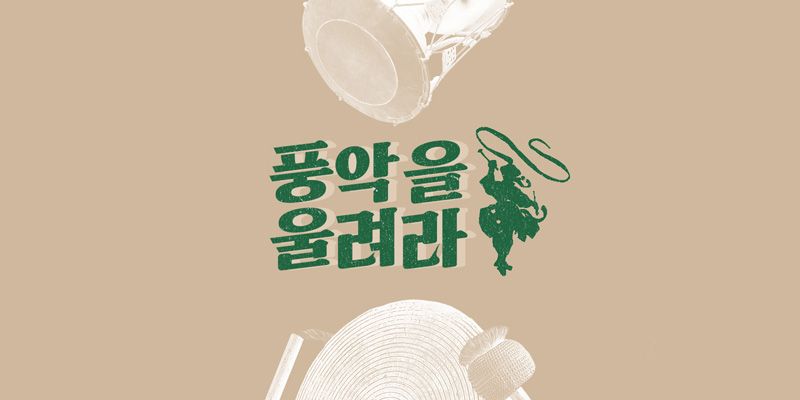
Rix Jongno Font Free Download is a modern, stylish sans-serif typeface inspired by traditional Korean calligraphy and design. With clean, geometric shapes and subtle nods to the elegance of Korean characters, this font is perfect for projects that require a contemporary yet culturally rich aesthetic. It’s ideal for branding, editorial design, posters, signage, and packaging that seeks to combine modernity with tradition.
Rix Jongno Font Free Download offers a harmonious blend of legibility and style, making it a versatile choice for both display text and body text. Its simple yet refined letterforms give it a sleek, professional look, while still maintaining the warmth and character often found in more decorative scripts.
Whether you’re designing for cultural events, fashion, tech branding, or any creative project, Rix Jongno brings sophistication and cultural depth to your typography.